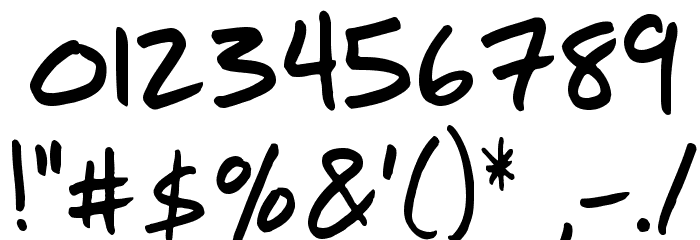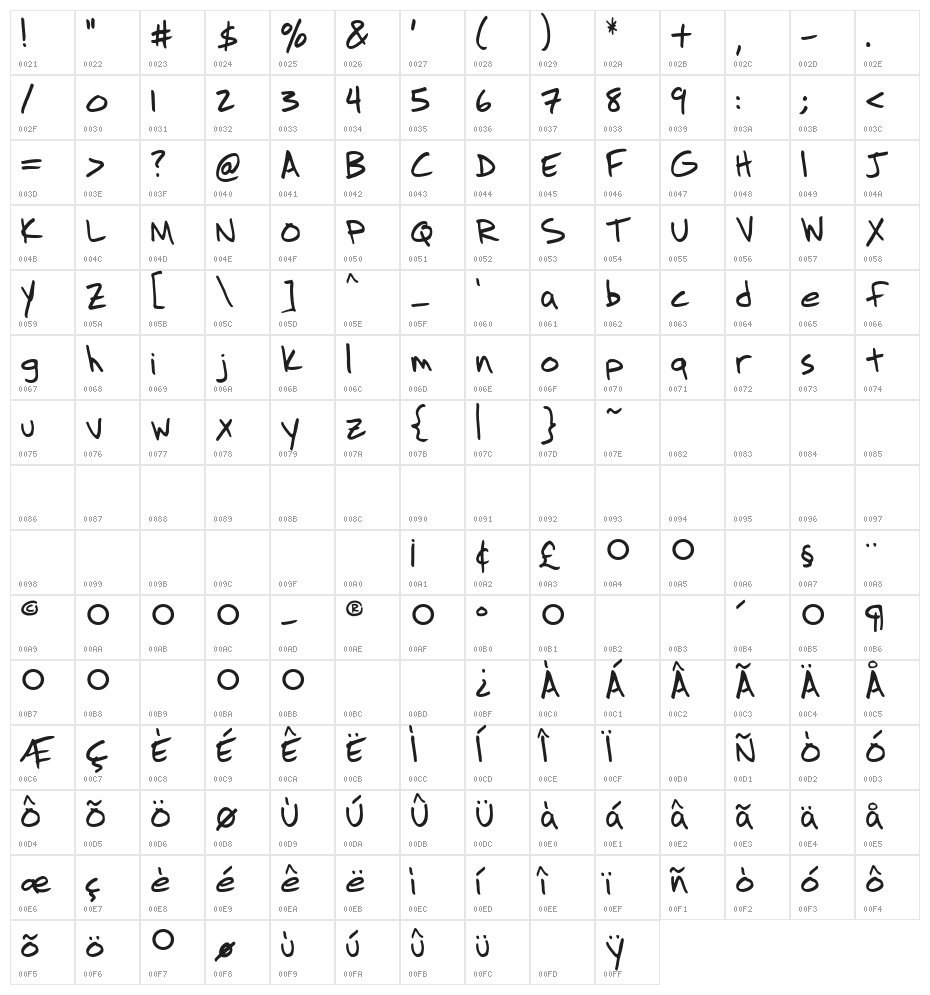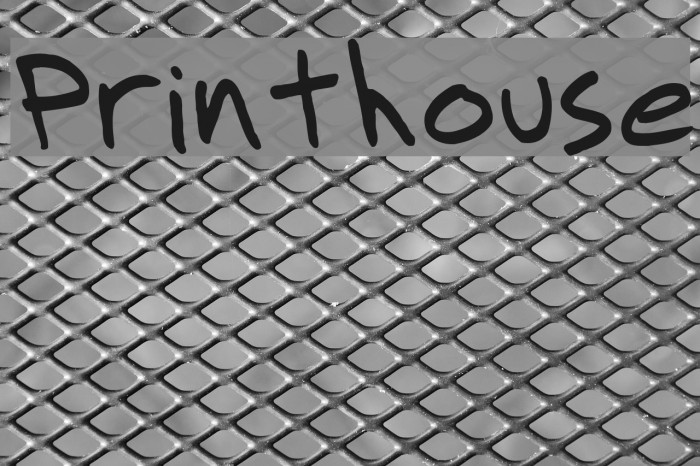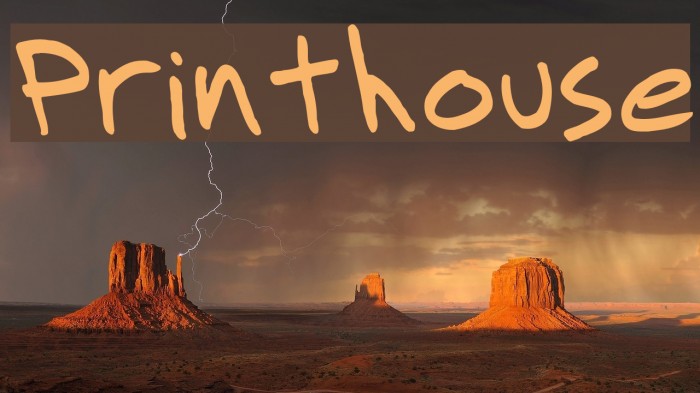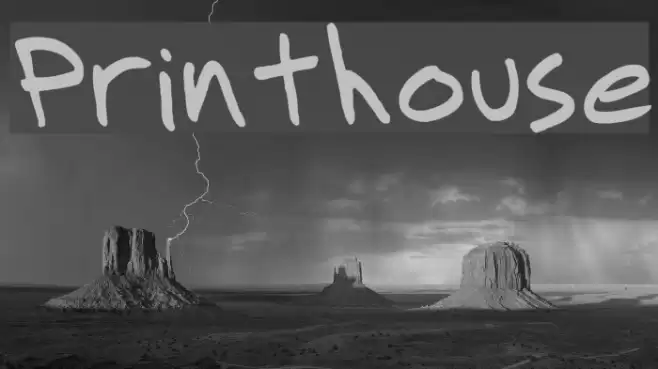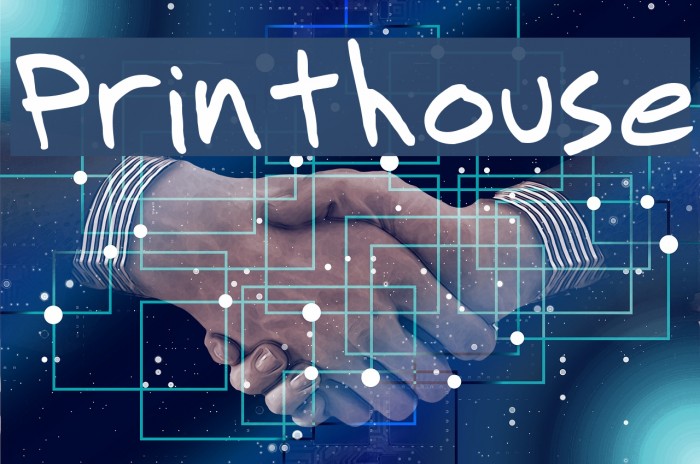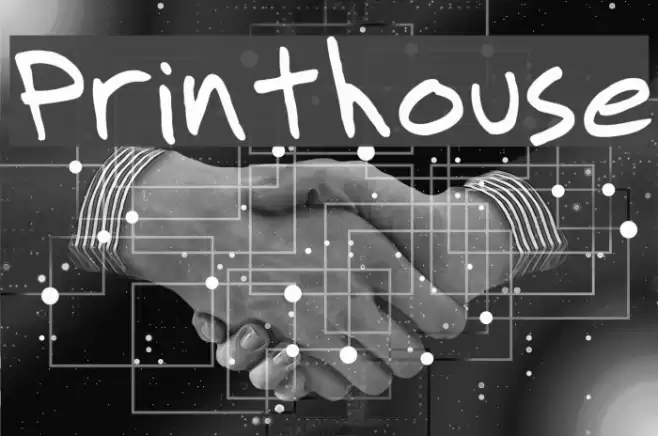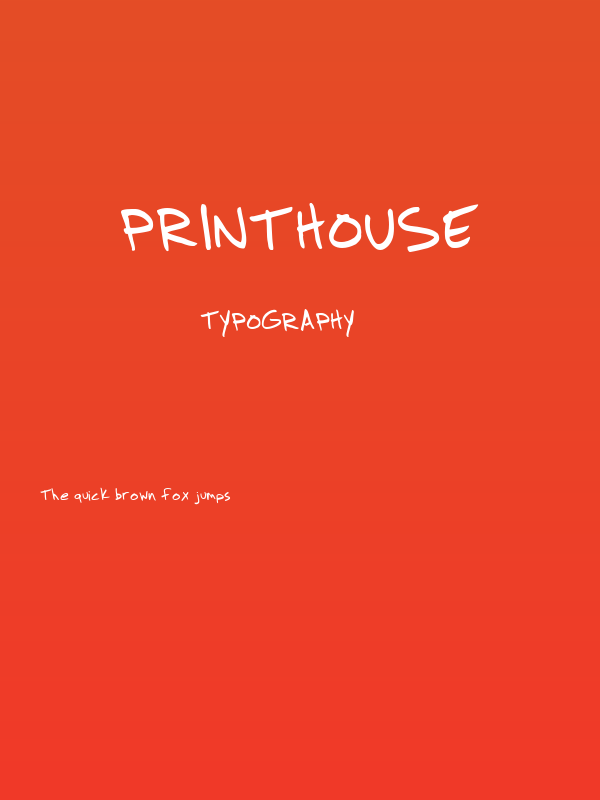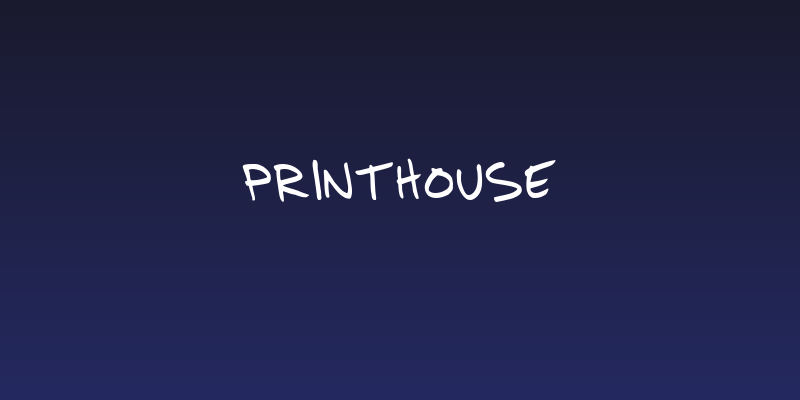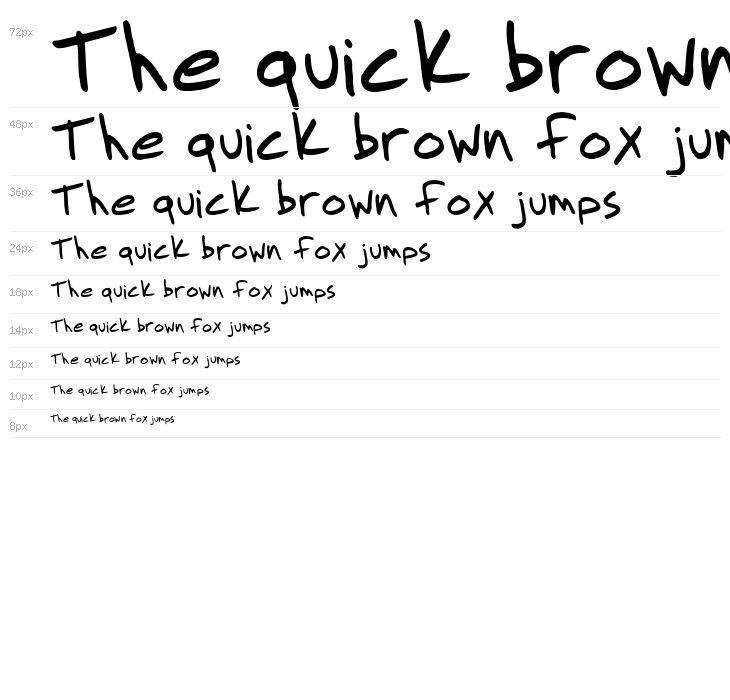
Printhouse Font
Printhouse Description
This font features a playful and informal handwritten style, characterized by its irregular strokes and casual appearance. The letters are slightly tilted, adding to the dynamic and lively feel. The uppercase and lowercase letters maintain a consistent flow, while the numerals and special characters complement the overall aesthetic. The strokes are moderately thick, providing good legibility while retaining a friendly and approachable look. This font is ideal for projects that require a personal touch or a relaxed vibe.
| Proposed Projects | Great for greeting cards, children's books, casual branding, and social media graphics. |